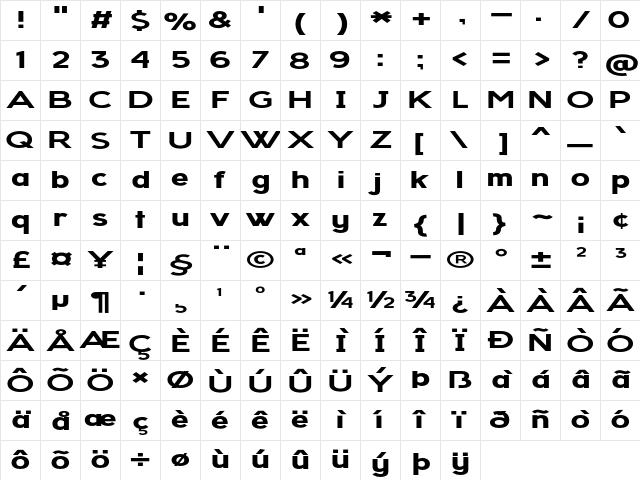
Blockjock Extra-expanded Regular
Style: Extra-expanded Regular
Blockjock Family
Blockjock Extra-expanded Regular
Complete Blockjock Extra-expanded Regular glyph index. Displaying only characters natively supported by Blockjock Extra-expanded Regular font.
Design Context for Blockjock
Blockjock is a composed and adaptable typeface that performs quietly and consistently across a wide range of design contexts.